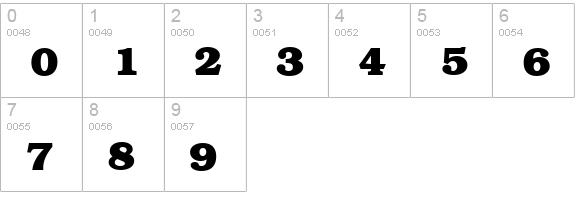
Book-Bold-Regular is a comfortable, highly readable variant in the Book typeface family \xE2\x80\x94 well suited to long-form body text, articles, and editorial content.
Book-Bold-Regular font is a versatile and stylish typeface designed to make a bold statement in any project. With its strong and impactful appearance, this font commands attention and adds a touch of sophistication to your designs. Whether you're creating posters, headlines, or branding materials, Book-Bold-Regular font is the perfect choice to elevate your work to the next level. What's even better is that this font is available for free download at FontsMarket.com. So you can enjoy all the benefits of this high-quality typeface without breaking the bank. Don't miss out on the opportunity to enhance your designs with the striking Book-Bold-Regular font today!